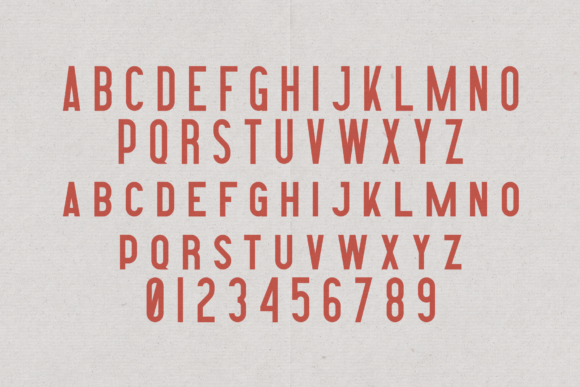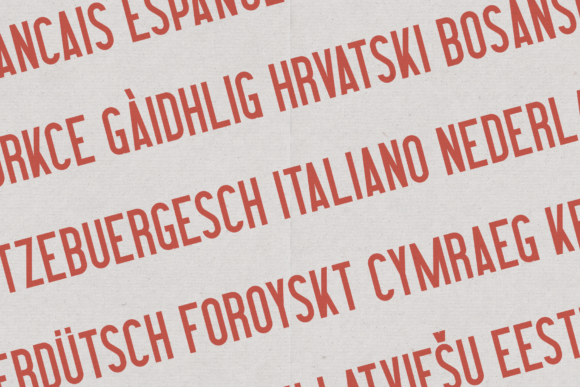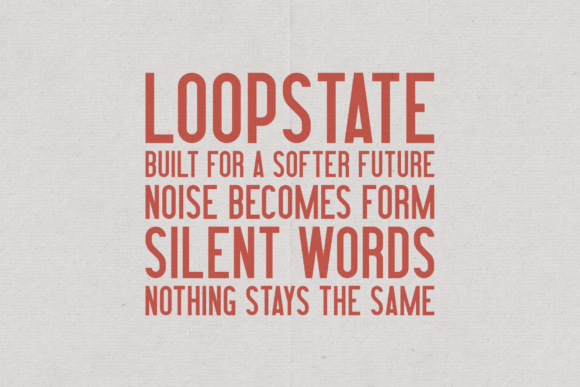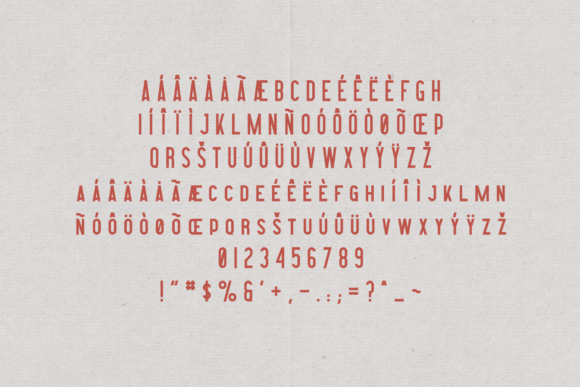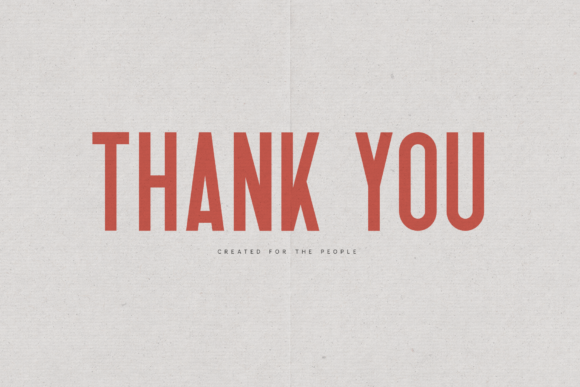
Introducing Contraband Font: The Ultimate Choice for Bold and Modern Typography
In the world of design, typography plays a crucial role in conveying the message and tone of a project. When it comes to creating strong, modern typography, the Contraband font is an excellent choice. This bold, condensed sans-serif font is designed to deliver clarity and impact across various design applications, including headlines, posters, branding, and editorial layouts.
Key Features of Contraband Font
The Contraband font boasts several key features that make it an essential tool for designers. Its tall proportions, clean geometry, and confident letterforms ensure that your message is conveyed with confidence and reliability. The font’s uniform stroke weight ensures high legibility, even from a distance, while its tight letter spacing provides a compact, high-impact aesthetic.
Industrial Grit Meets Contemporary Clean Lines
One of the unique aspects of the Contraband font is its ability to strike a perfect balance between industrial grit and contemporary clean lines. This balance makes it an ideal choice for designers who want to convey a sense of confidence and reliability in their work. The font’s architectural nature makes it incredibly versatile for high-energy branding, including sports apparel logos, film posters, and technical editorial layouts where a “heavyweight” feel is required.
Versatility and Pairing Options
The Contraband font is an incredibly versatile typeface that can be used in various design applications. To elevate your design, try pairing the Contraband font with a delicate script or a light-weight serif to create a dynamic hierarchy. This pairing will add contrast and visual interest to your design, making it more engaging and effective.
Design Applications for Contraband Font
The Contraband font is suitable for a wide range of design applications, including:
- Sports apparel logos: The font’s bold and confident letterforms make it an excellent choice for sports branding.
- Film posters: The Contraband font’s high-impact aesthetic and “heavyweight” feel make it perfect for film posters and movie titles.
- Technical editorial layouts: The font’s clean geometry and uniform stroke weight ensure high legibility, making it suitable for technical editorial layouts.
- Branding and advertising: The Contraband font’s versatility and confidence make it an excellent choice for branding and advertising campaigns.
Why Choose Contraband Font?
There are several reasons why designers and crafters should choose the Contraband font for their projects:
- Unique and confident letterforms: The Contraband font’s bold and confident letterforms ensure that your message is conveyed with confidence and reliability.
- High legibility: The font’s uniform stroke weight and clean geometry ensure high legibility, even from a distance.
- Versatility: The Contraband font is suitable for various design applications, making it an excellent addition to any designer’s toolkit.
- Dynamic pairing options: The font can be paired with other typefaces to create a dynamic hierarchy and add contrast to your design.
In conclusion, the Contraband font is an excellent choice for designers and crafters who want to create strong, modern typography. Its unique features, versatility, and pairing options make it an essential tool for various design applications. Whether you’re working on a sports apparel logo, film poster, or technical editorial layout, the Contraband font is sure to deliver clarity and impact.